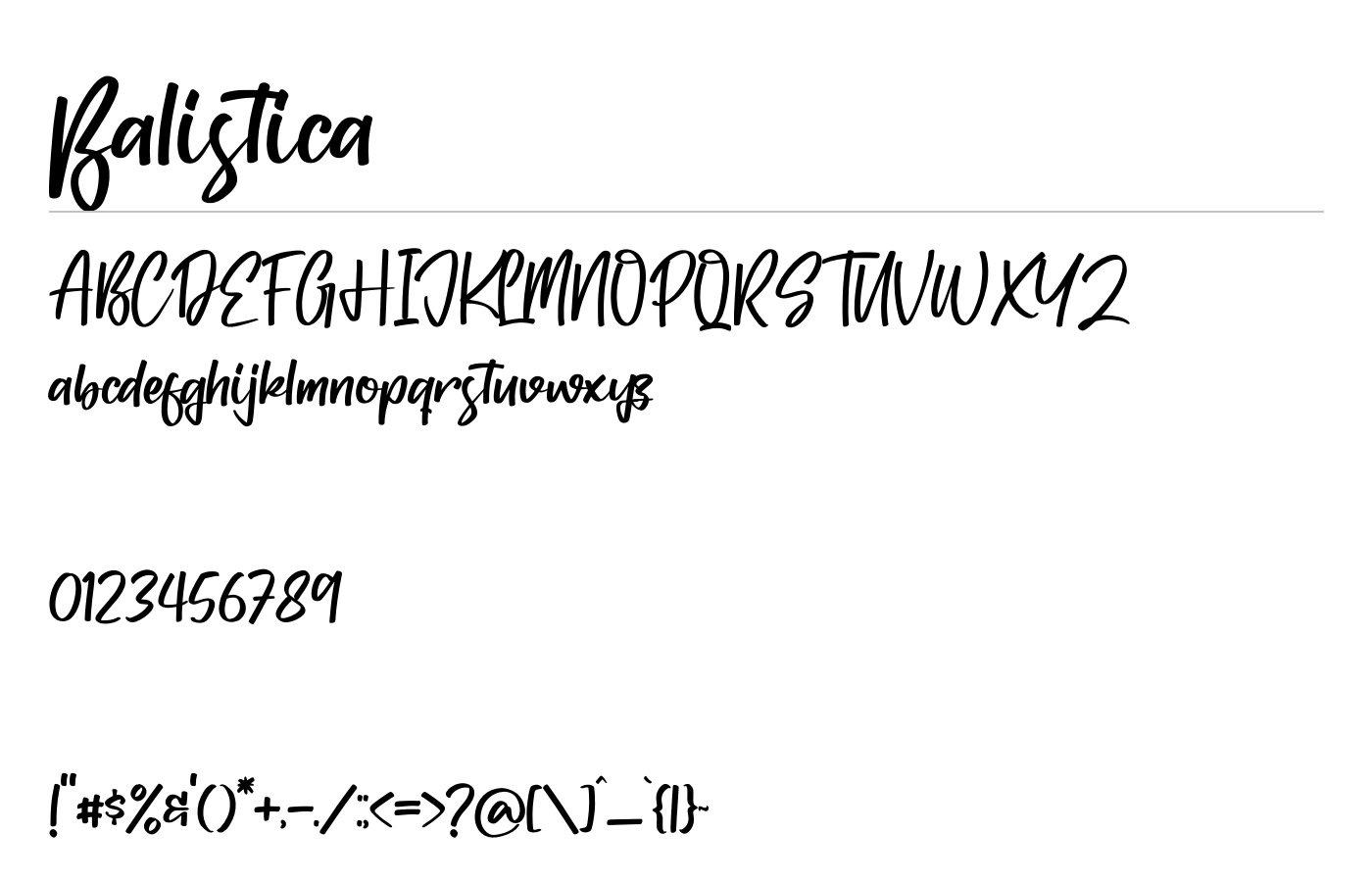
Balistica is a lively and modern handwritten script font with a casual, brush-stroke style that feels both energetic and approachable. Its varied stroke widths and playful letterforms make it perfect for creative projects, branding, and headlines where a personal, informal touch is desired. This font works well for lifestyle brands, social media graphics, and eye-catching packaging that benefits from a fresh and dynamic personality.
Balistica Font
About Balistica Font